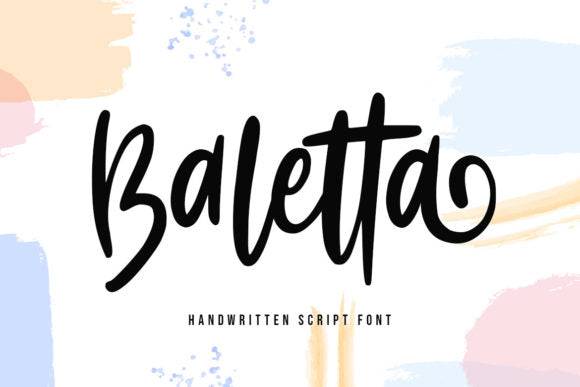
Baletta Script Font
Baletta Script is a distinct, graceful script font. Fall for its ravishing style and use it to create gorgeous designs. This font is PUA encoded, which means you can access all glyphs and swashes with ease!
- Distinct, graceful script font
- Ravishing style for gorgeous designs